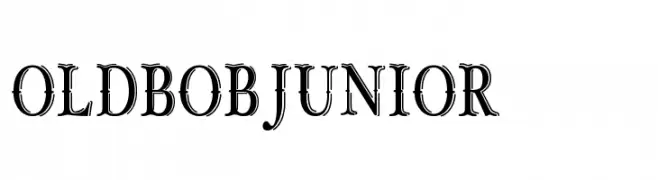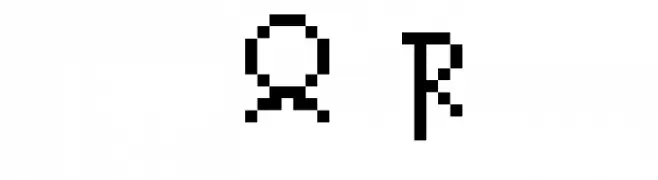
( Fontsandfashion - www.fontsandfashion.com/ )
A bold, decorative serif font with intricate details and a vintage flair.
( JMRBooks Fonts )
A decorative font with a mosaic-like, grid-based design inspired by traditional beadwork.
( Gregoryfonts - www.geocities.com/soho/coffeehouse/9609/fonts/fonts.html )
An ornate, vintage-style font with decorative swirls and flourishes.
( Font-a-licious - www.fontalicious.com/ )
A pixelated, dot-based display font with a digital, futuristic style.
( Giedi Prime )
A mystical, rune-like font with bold, flowing characters.
( Font Emporium - web.archive.org/web/20020126112915/www.fontemporium.com/ )
A bold, high-contrast font with sharp serifs and angular lines, ideal for dramatic designs.
( GroovyJournal - www.groovyjournal.com )
A playful, bold font with rounded, slightly irregular characters.
( Gothi - airushimmadaga.wordpress.com )
A pixelated, geometric font with a retro digital aesthetic.
( Kinema Moon Graphics - www.kinemamoon.com/ )
A segmented, digital-style font with a modern, tech-inspired look.
( Kinema Moon Graphics - www.kinemamoon.com/ )
A dot-matrix style font with a retro digital appearance.